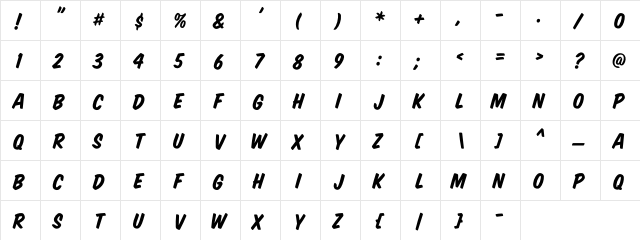
HouseSampler-HouseSlant Regular
| Foundry | Sign Painter House Slant (C) House Industries/Brand Design Co. Inc |
| Designer | House Industries |
Design Context for HouseSampler-HouseSlant Typeface
HouseSampler-HouseSlant is a composed and adaptable typeface that performs quietly and consistently across a wide range of design contexts.